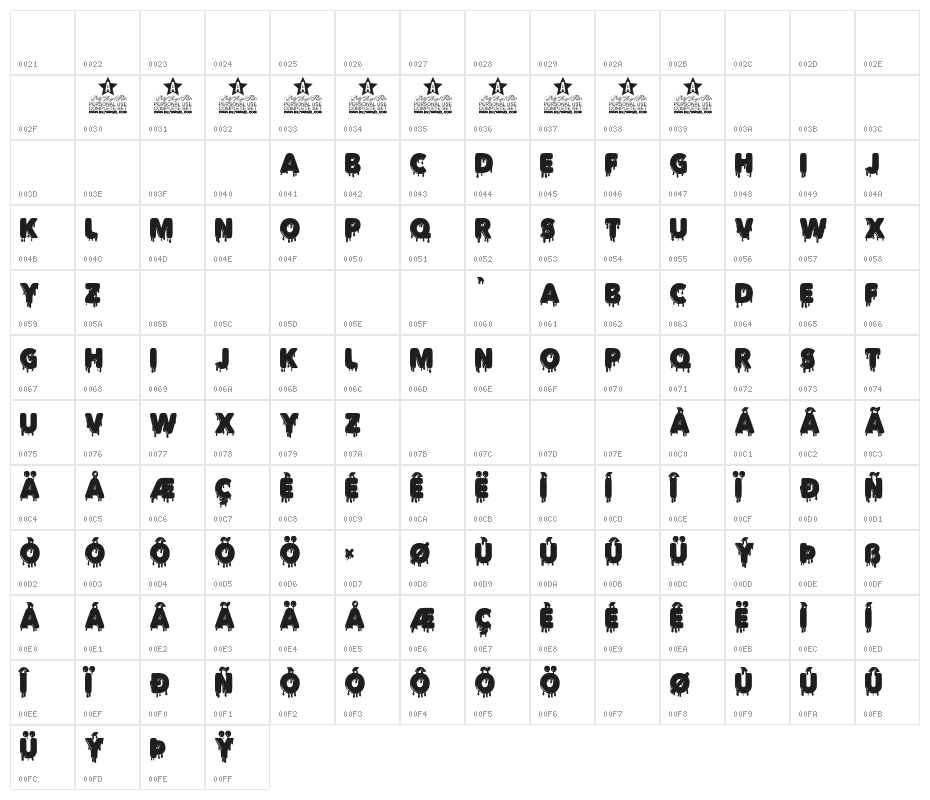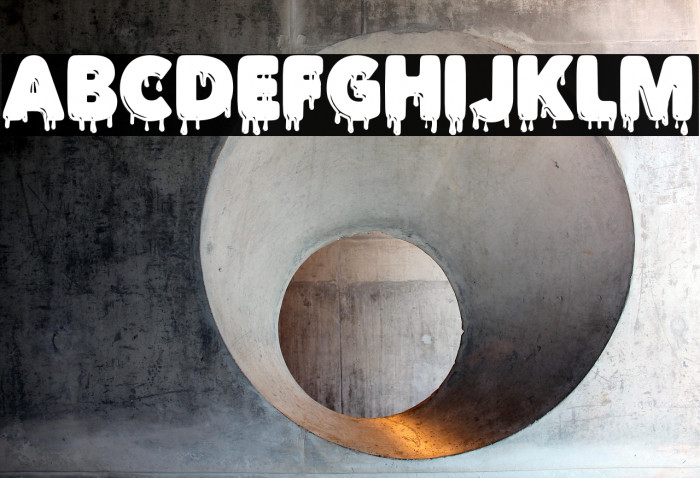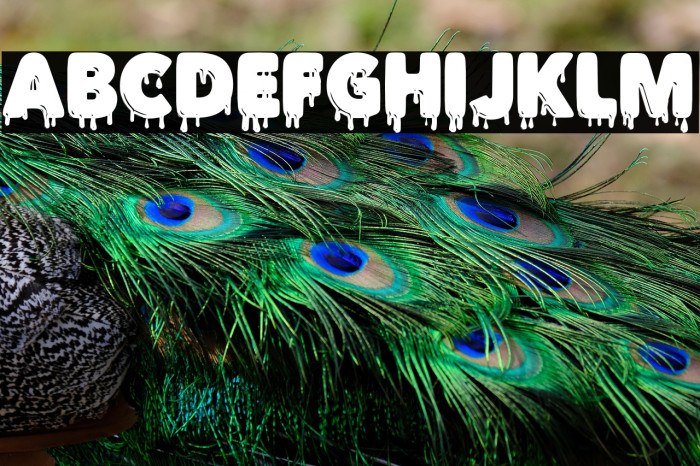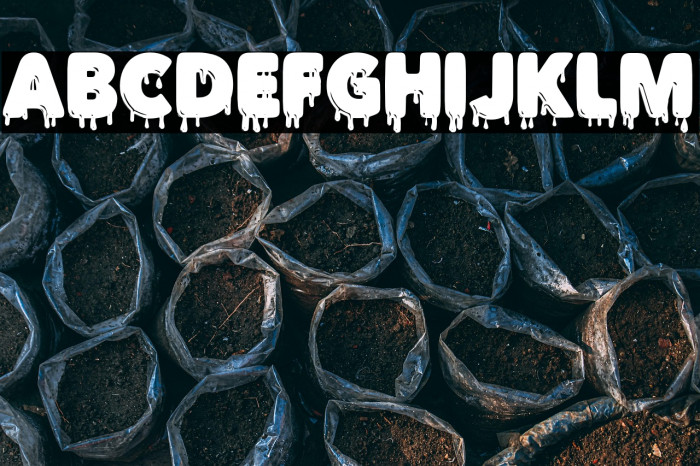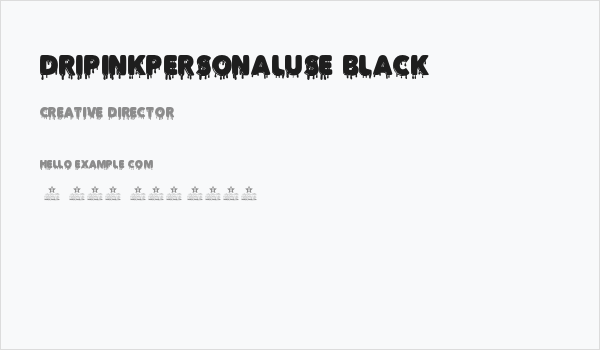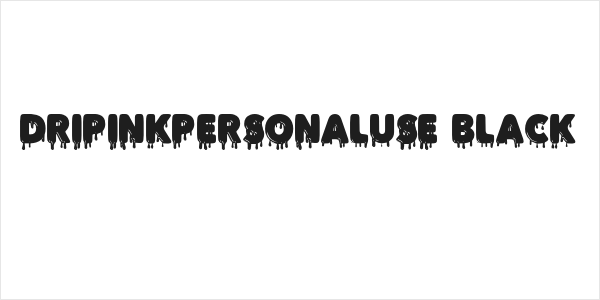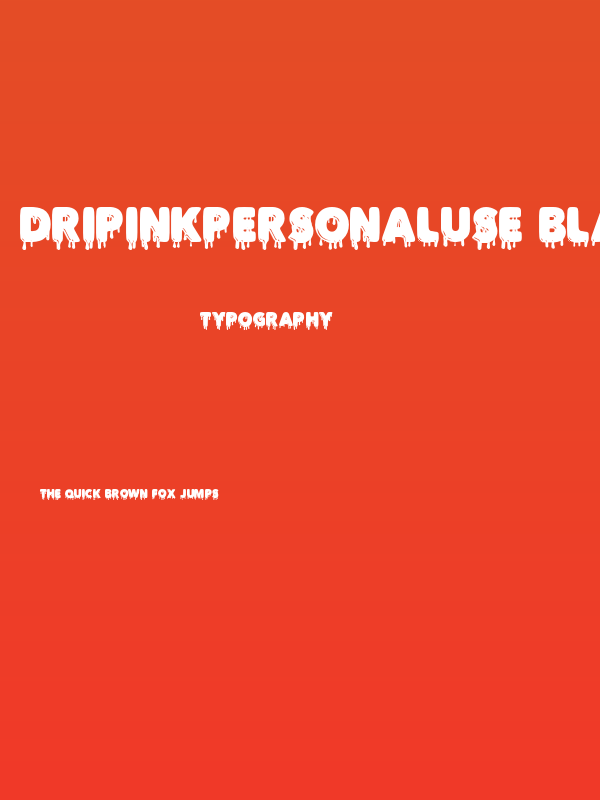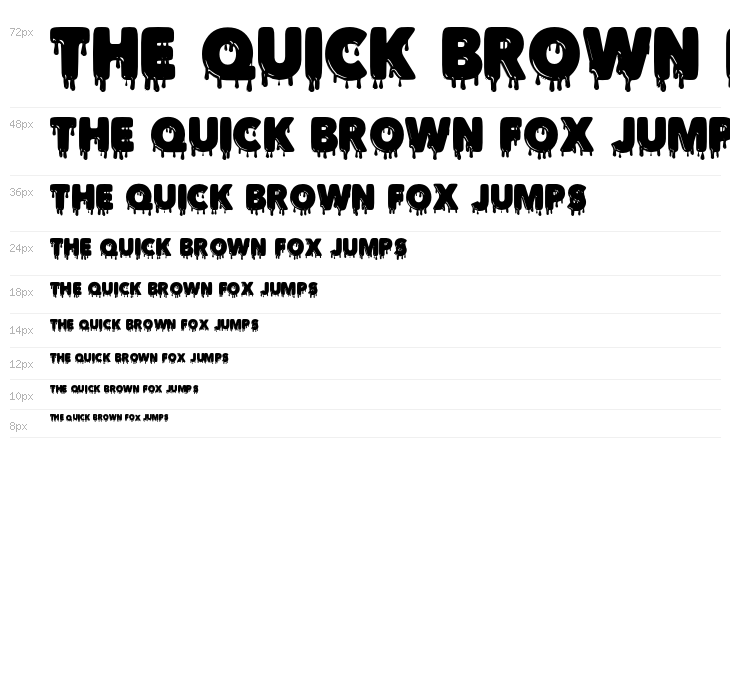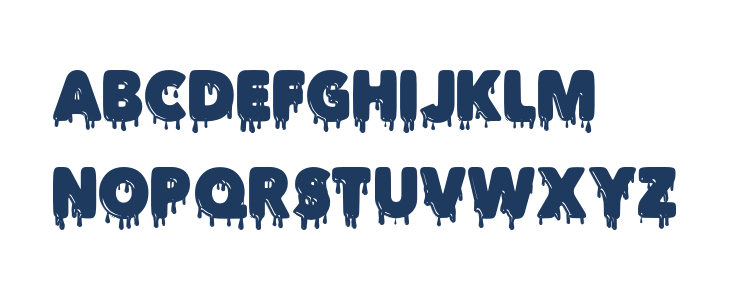
DRIPINKPERSONALUSE-Black Font
DRIPINKPERSONALUSE-Black Description
This font features a bold and playful design with a dripping effect that gives it a unique, liquid-like appearance. The uppercase letters are thick and rounded, with drips extending from the bottom of each character, creating a sense of movement and fluidity. The style is eye-catching and distinctive, making it ideal for creative projects that require a bold statement. The font's design is consistent across all characters, maintaining a cohesive look that is both modern and artistic. The dripping effect adds a touch of whimsy and can evoke themes of melting, fluidity, or even horror, depending on the context in which it is used.
| Proposed Projects | Ideal for posters, album covers, Halloween-themed designs, or any project needing a bold, artistic touch. |